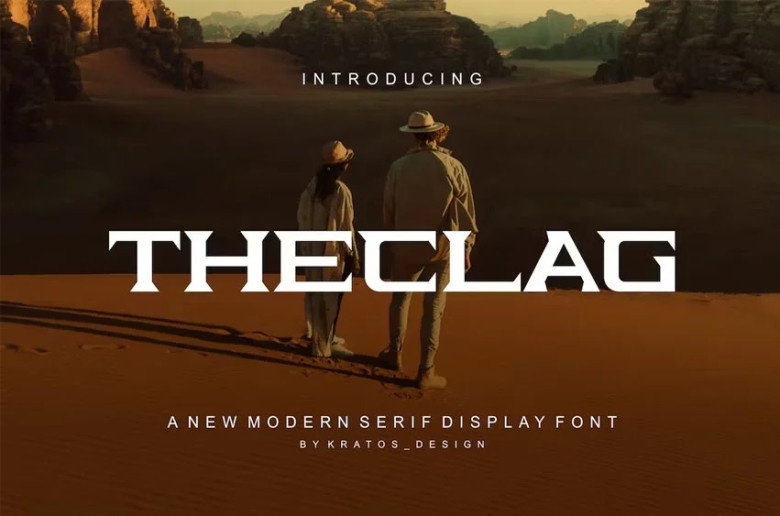
Theclag Font
Theclag Font, with its maximum legibility and simple geometric style is ideal for branding purposes; such as brochures, greeting cards posters stationary designs headers for blogs etc.
Theclag Serif Font